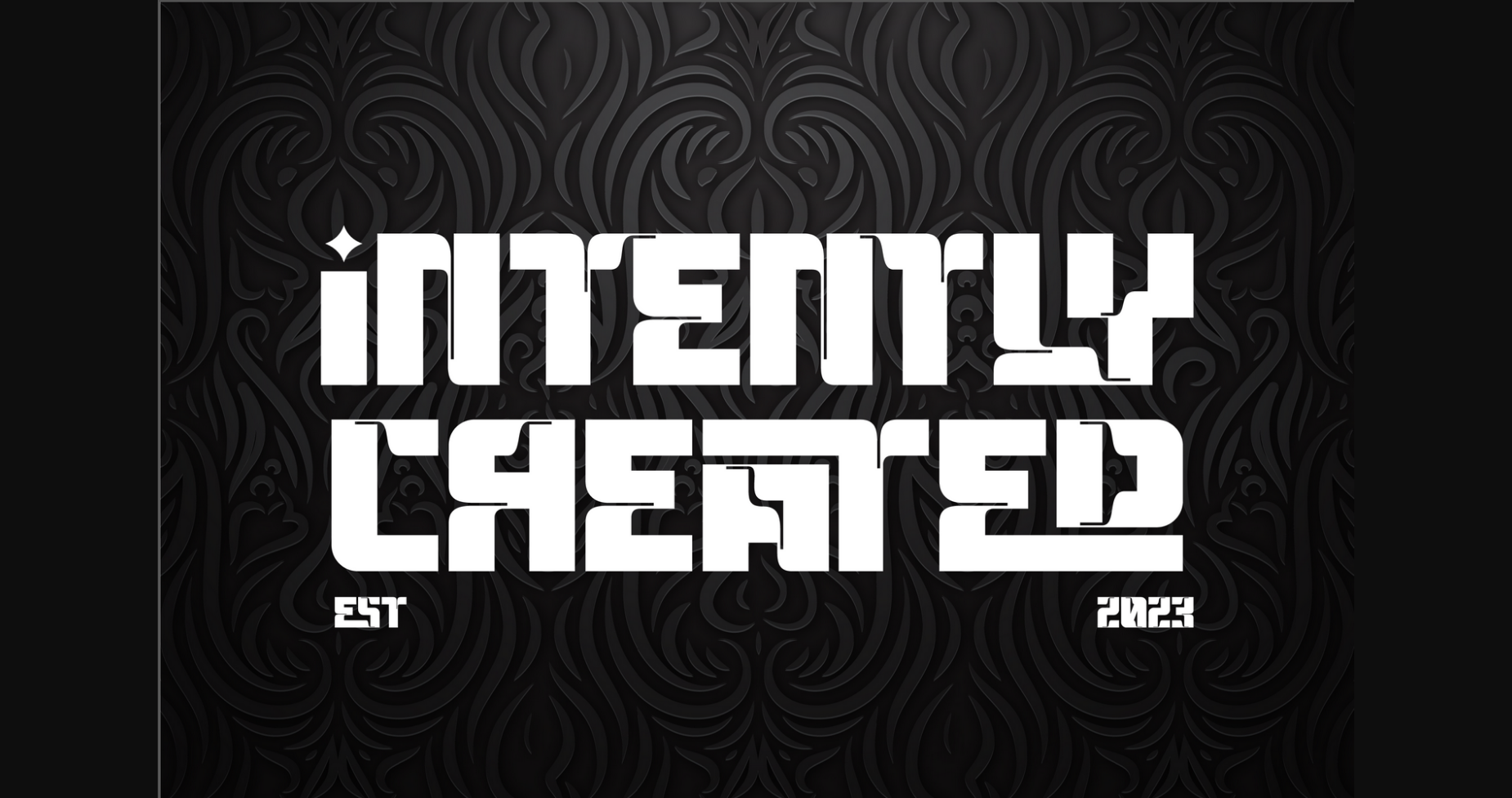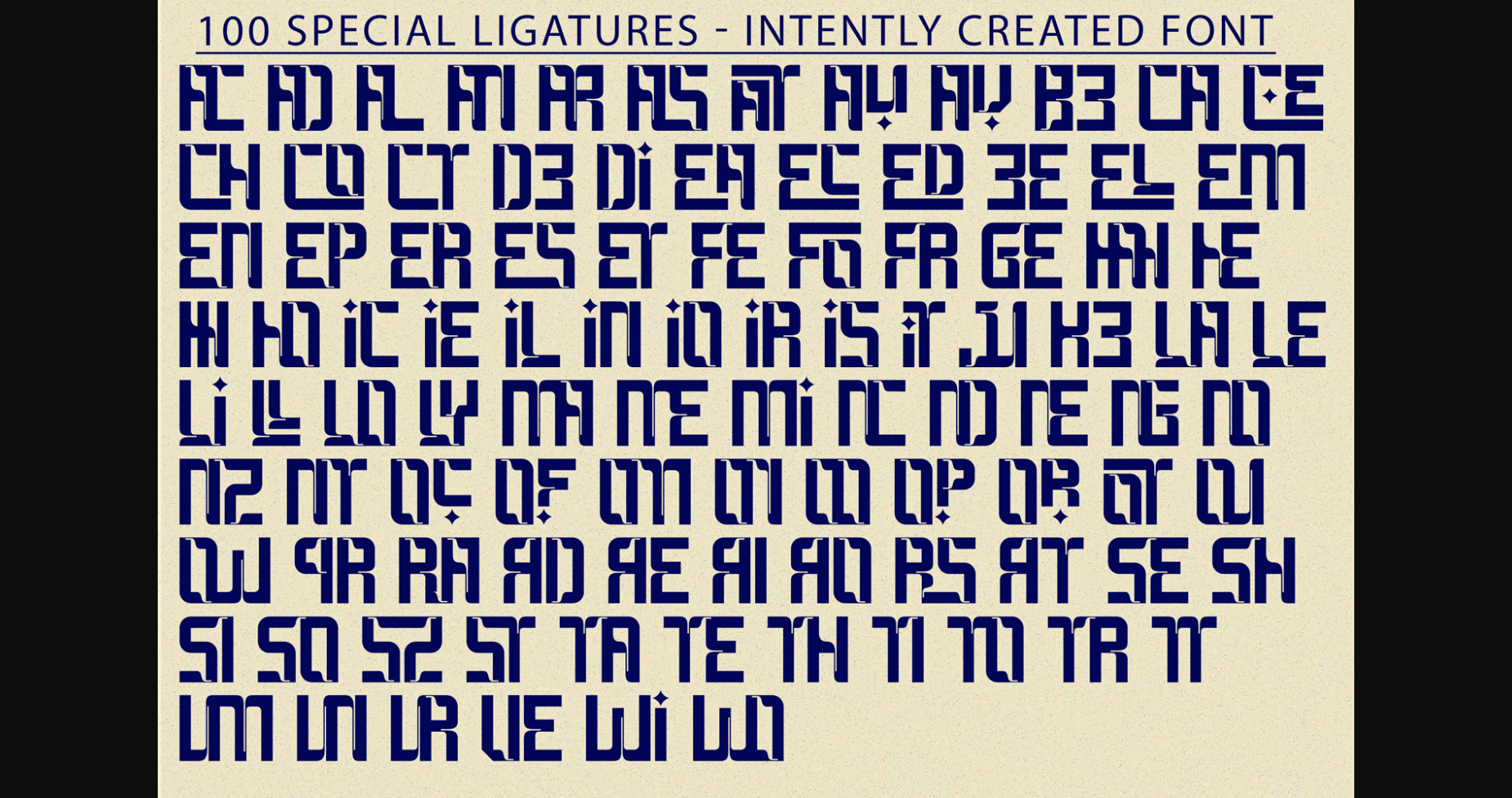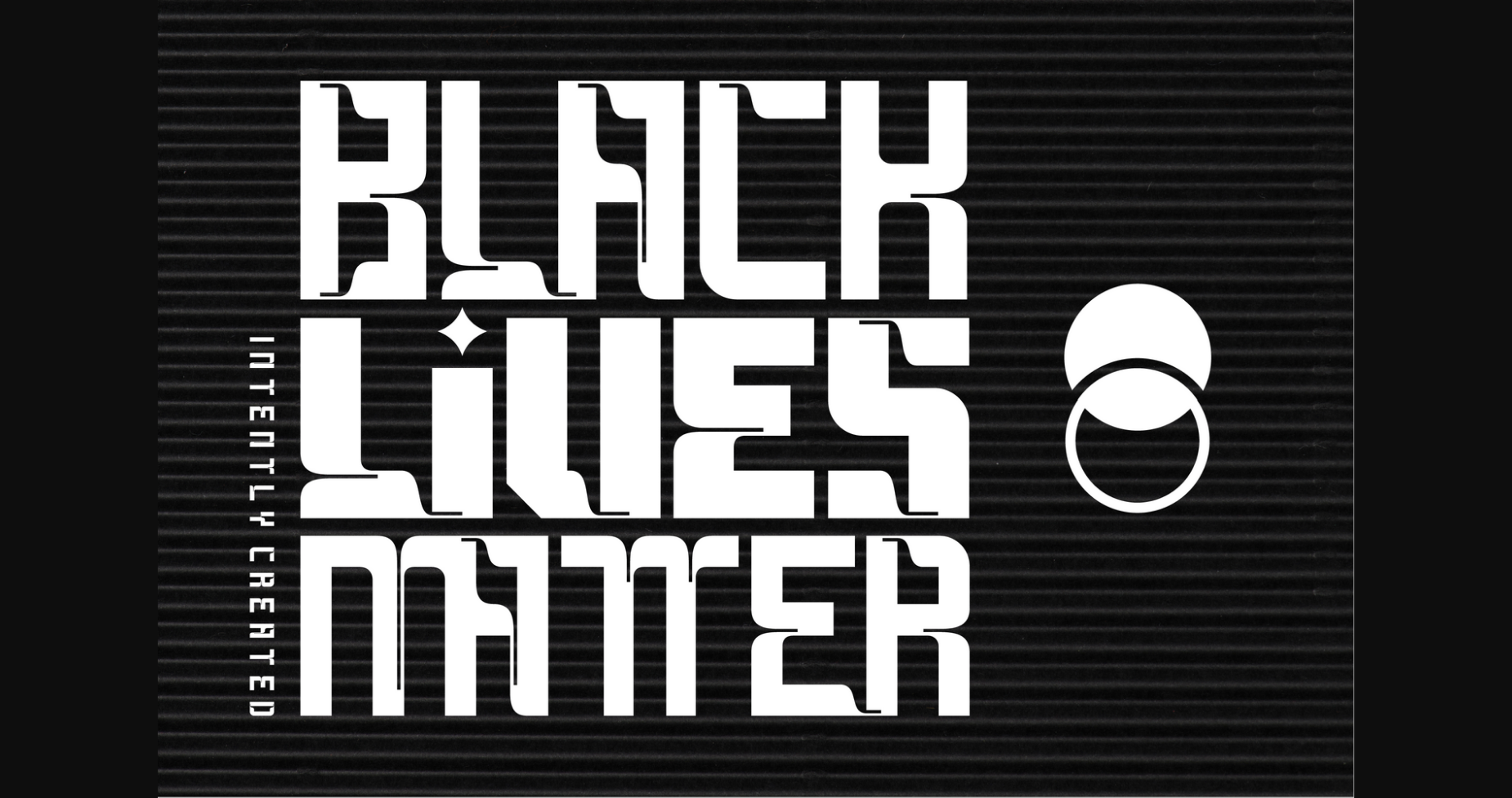
Intently Created Font
About Intently Created Font
Intently Created is a quirky and different sans serif typeface, created to breathe life into headlines with its eye-catching presence. This font attracts attention and takes any design project to a new level with its striking and fashionable look. It is well-suited for headlines, branding, print templates, logos and more.